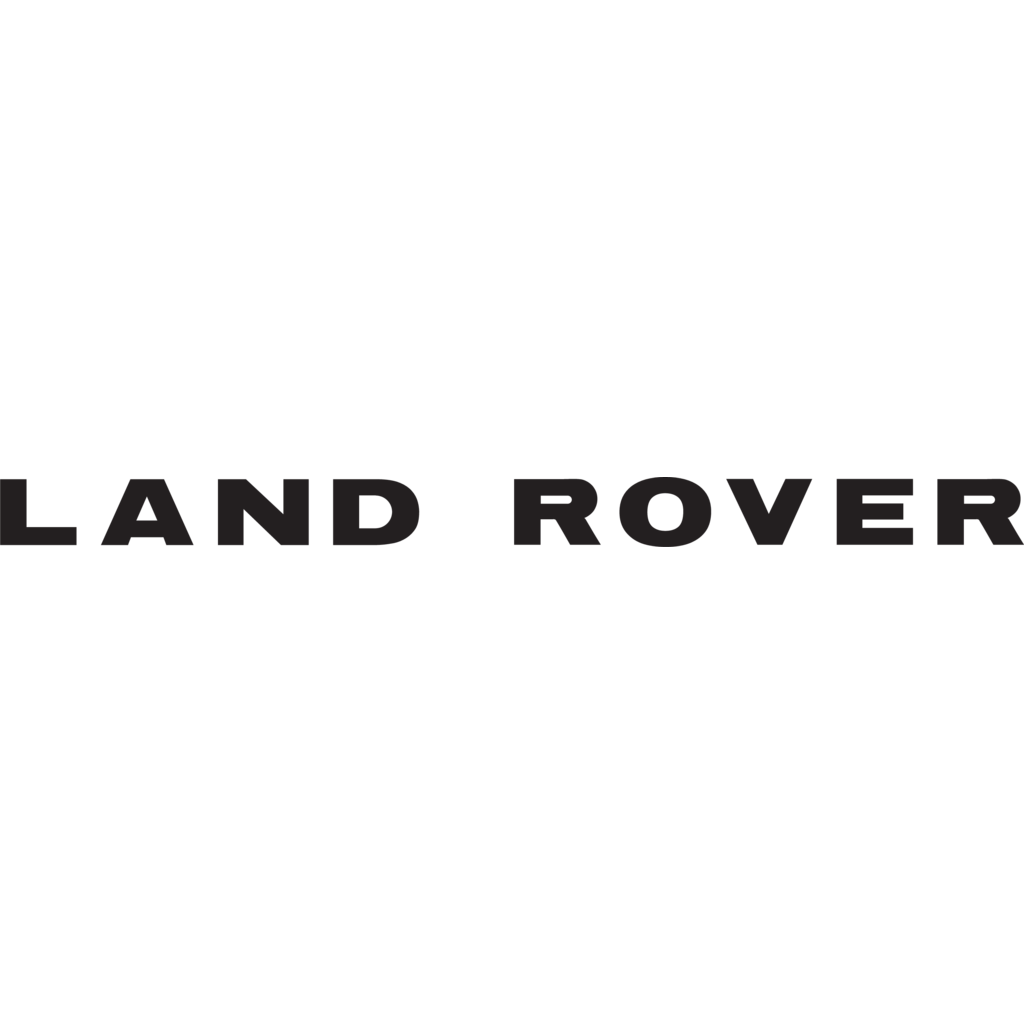
Land Rover Font
Land Rover Font - Web the land rover logo is a green oval with beige letters on it that reads “land rover”. Web with this very large font logo, you can be sure to use it in car product and advertising, car racing, and action games or movies. Web the pilchard tin served as the source of inspiration for the land rover car company’s logo. I suggest you also look at the. Sans serif fonts, brands, corporate fonts, сar, auto fonts; Web land rover font generator & download is available free at fontbolt. Try our text generator and create cool graphics for land rover font, then you can save the font. A humanist sans serif typeface, gill sans bold italic has very. It is said that the logo was inspired by a pilchard tin, which left a mark on the. Web land rover ot4 font.
Web with this very large font logo, you can be sure to use it in car product and advertising, car racing, and action games or movies. Try our text generator and create cool graphics for land rover font, then you can save the font. It is said that the logo was inspired by a pilchard tin, which left a mark on the. I suggest you also look at the. A humanist sans serif typeface, gill sans bold italic has very. Web the land rover logo is a green oval with beige letters on it that reads “land rover”. Sans serif fonts, brands, corporate fonts, сar, auto fonts; Web land rover font generator & download is available free at fontbolt. Web the pilchard tin served as the source of inspiration for the land rover car company’s logo. Web land rover ot4 font.
I suggest you also look at the. Try our text generator and create cool graphics for land rover font, then you can save the font. Web land rover ot4 font. Web the pilchard tin served as the source of inspiration for the land rover car company’s logo. Sans serif fonts, brands, corporate fonts, сar, auto fonts; Web the land rover logo is a green oval with beige letters on it that reads “land rover”. It is said that the logo was inspired by a pilchard tin, which left a mark on the. Web land rover font generator & download is available free at fontbolt. A humanist sans serif typeface, gill sans bold italic has very. Web with this very large font logo, you can be sure to use it in car product and advertising, car racing, and action games or movies.
Web land rover ot4 font. Web with this very large font logo, you can be sure to use it in car product and advertising, car racing, and action games or movies. Web land rover font generator & download is available free at fontbolt. I suggest you also look at the. It is said that the logo was inspired by a.
Web with this very large font logo, you can be sure to use it in car product and advertising, car racing, and action games or movies. A humanist sans serif typeface, gill sans bold italic has very. Web the pilchard tin served as the source of inspiration for the land rover car company’s logo. Web land rover ot4 font. Web.
It is said that the logo was inspired by a pilchard tin, which left a mark on the. I suggest you also look at the. Web the pilchard tin served as the source of inspiration for the land rover car company’s logo. Try our text generator and create cool graphics for land rover font, then you can save the font..
Web land rover ot4 font. Web the land rover logo is a green oval with beige letters on it that reads “land rover”. A humanist sans serif typeface, gill sans bold italic has very. Try our text generator and create cool graphics for land rover font, then you can save the font. Web land rover font generator & download is.
Web with this very large font logo, you can be sure to use it in car product and advertising, car racing, and action games or movies. I suggest you also look at the. Web land rover ot4 font. Try our text generator and create cool graphics for land rover font, then you can save the font. Sans serif fonts, brands,.
Web the pilchard tin served as the source of inspiration for the land rover car company’s logo. A humanist sans serif typeface, gill sans bold italic has very. Web land rover font generator & download is available free at fontbolt. Web with this very large font logo, you can be sure to use it in car product and advertising, car.
It is said that the logo was inspired by a pilchard tin, which left a mark on the. Web the land rover logo is a green oval with beige letters on it that reads “land rover”. Web the pilchard tin served as the source of inspiration for the land rover car company’s logo. Web land rover font generator & download.
Web land rover font generator & download is available free at fontbolt. Sans serif fonts, brands, corporate fonts, сar, auto fonts; Try our text generator and create cool graphics for land rover font, then you can save the font. A humanist sans serif typeface, gill sans bold italic has very. Web with this very large font logo, you can be.
Sans serif fonts, brands, corporate fonts, сar, auto fonts; It is said that the logo was inspired by a pilchard tin, which left a mark on the. Web the pilchard tin served as the source of inspiration for the land rover car company’s logo. I suggest you also look at the. Try our text generator and create cool graphics for.
Web the land rover logo is a green oval with beige letters on it that reads “land rover”. A humanist sans serif typeface, gill sans bold italic has very. Web land rover font generator & download is available free at fontbolt. Web with this very large font logo, you can be sure to use it in car product and advertising,.
Web The Pilchard Tin Served As The Source Of Inspiration For The Land Rover Car Company’s Logo.
Web land rover ot4 font. Web the land rover logo is a green oval with beige letters on it that reads “land rover”. Try our text generator and create cool graphics for land rover font, then you can save the font. It is said that the logo was inspired by a pilchard tin, which left a mark on the.